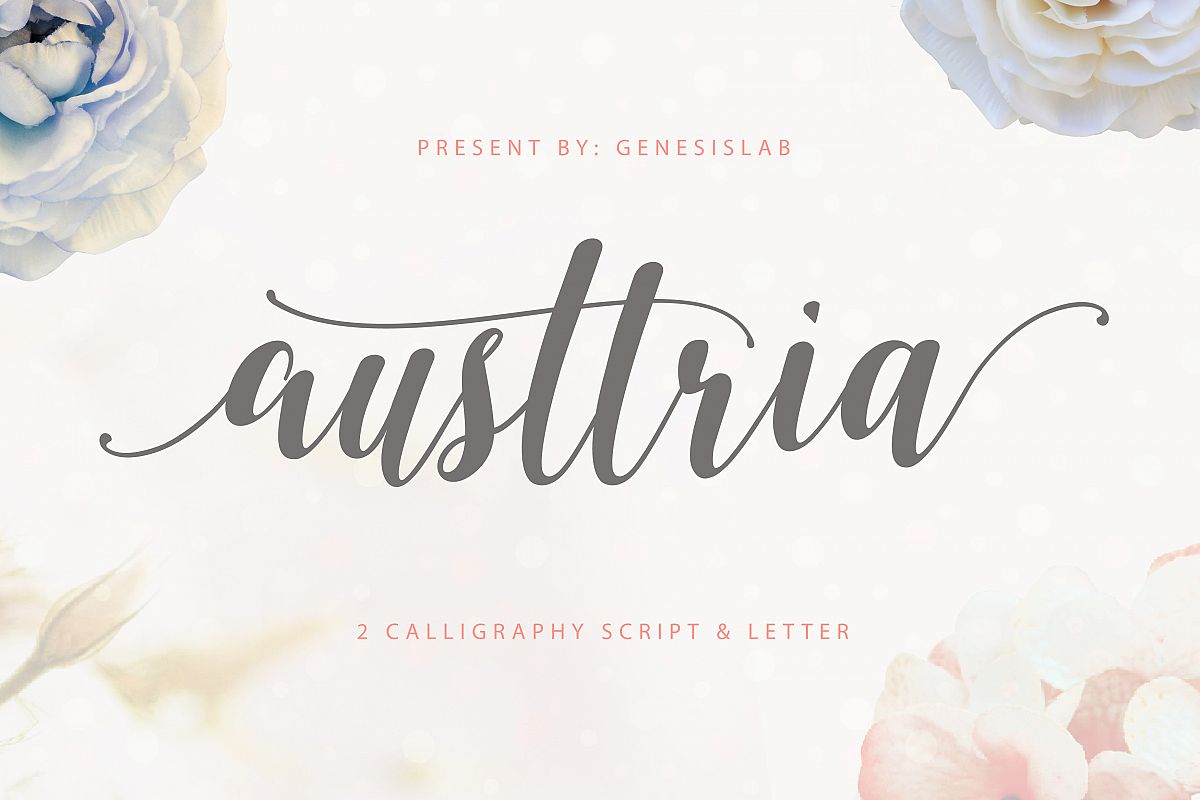
Hi ... Introduces New Font Austtria Script & Austtria Letter Inlaid with 2 types of modern calligraphy and graffiti-style original right hand, if you are interested in this font, it can be used easily and simply with applications that support your work ... this font equipped with a full glyphs among others, stylistic alternates, terminal forms, initial forms, ligatures.To activate OpenType Acces you need a program that supports OpenType features such as Adobe Illustrator CS, Adobe PS Adobe Indesign and CorelDraw X6-X7, Microsoft Word 2010 or later.These fonts match the growing market today, with the form of cursive typeface design style is soft, you can mix with fun and feel feminine. Trendy and a wonderful way to highlight your best party celebration, as supporters such as wedding invitations, parties, graduations, birthdays, meetings, and other ...Please use the format below.Files include: